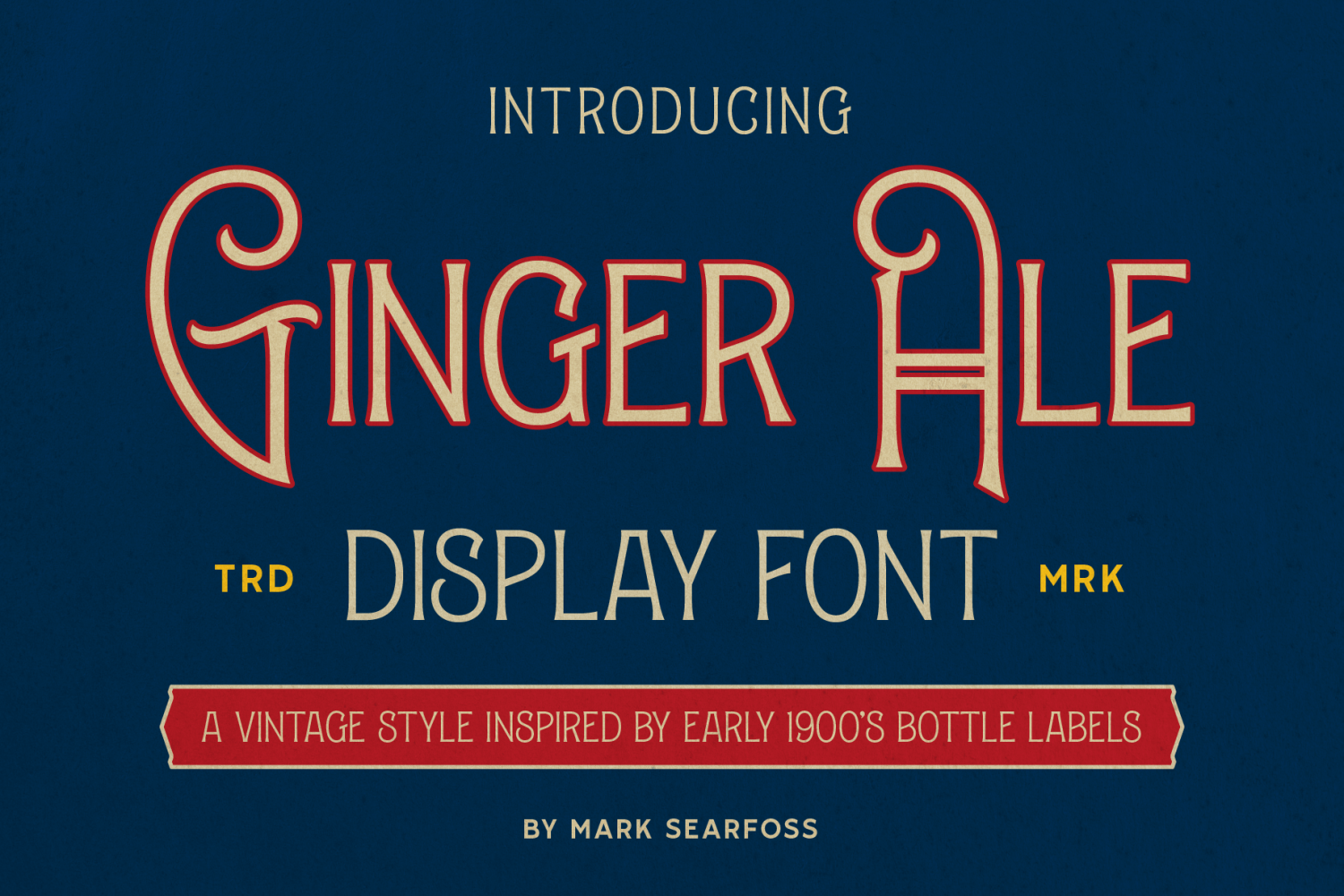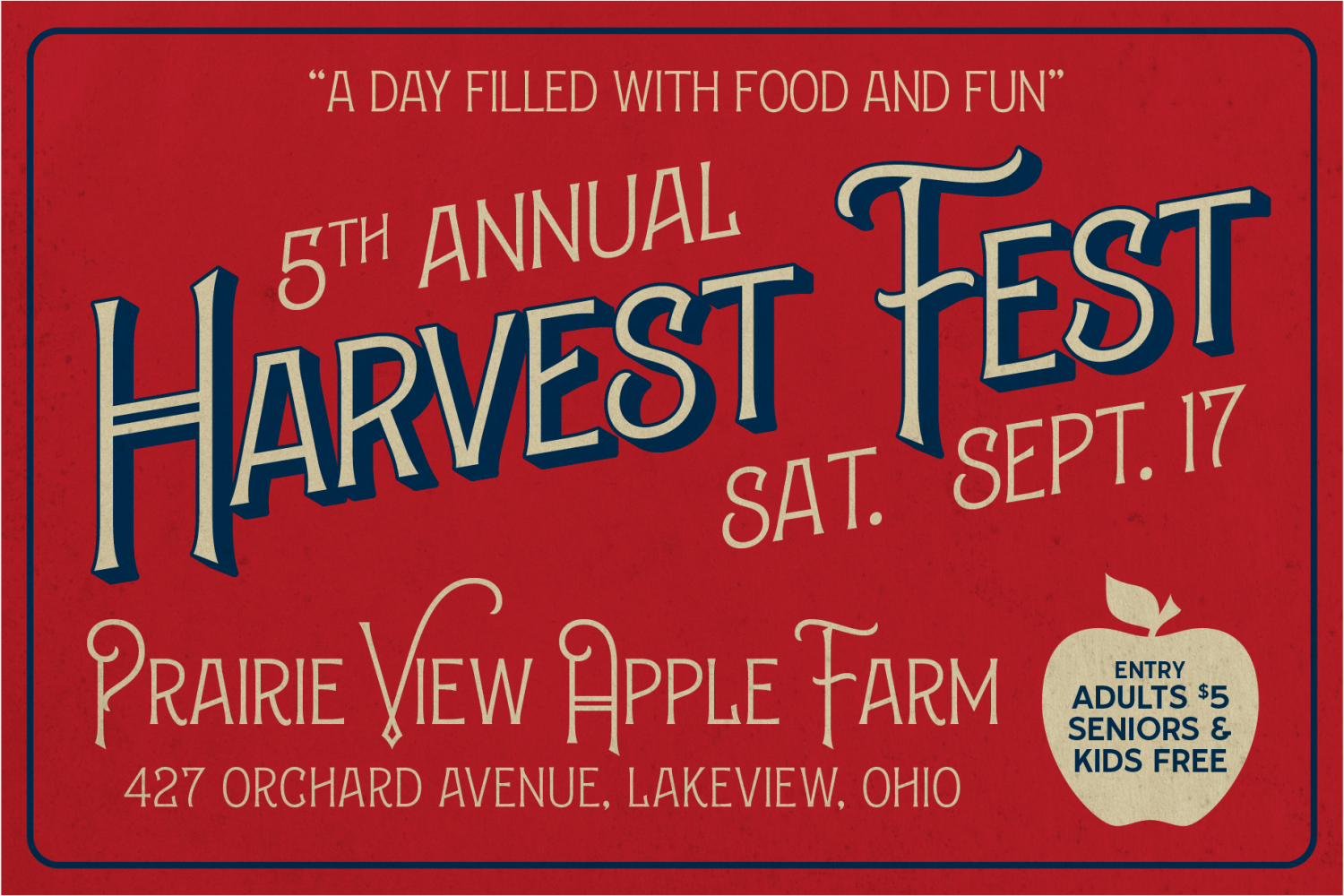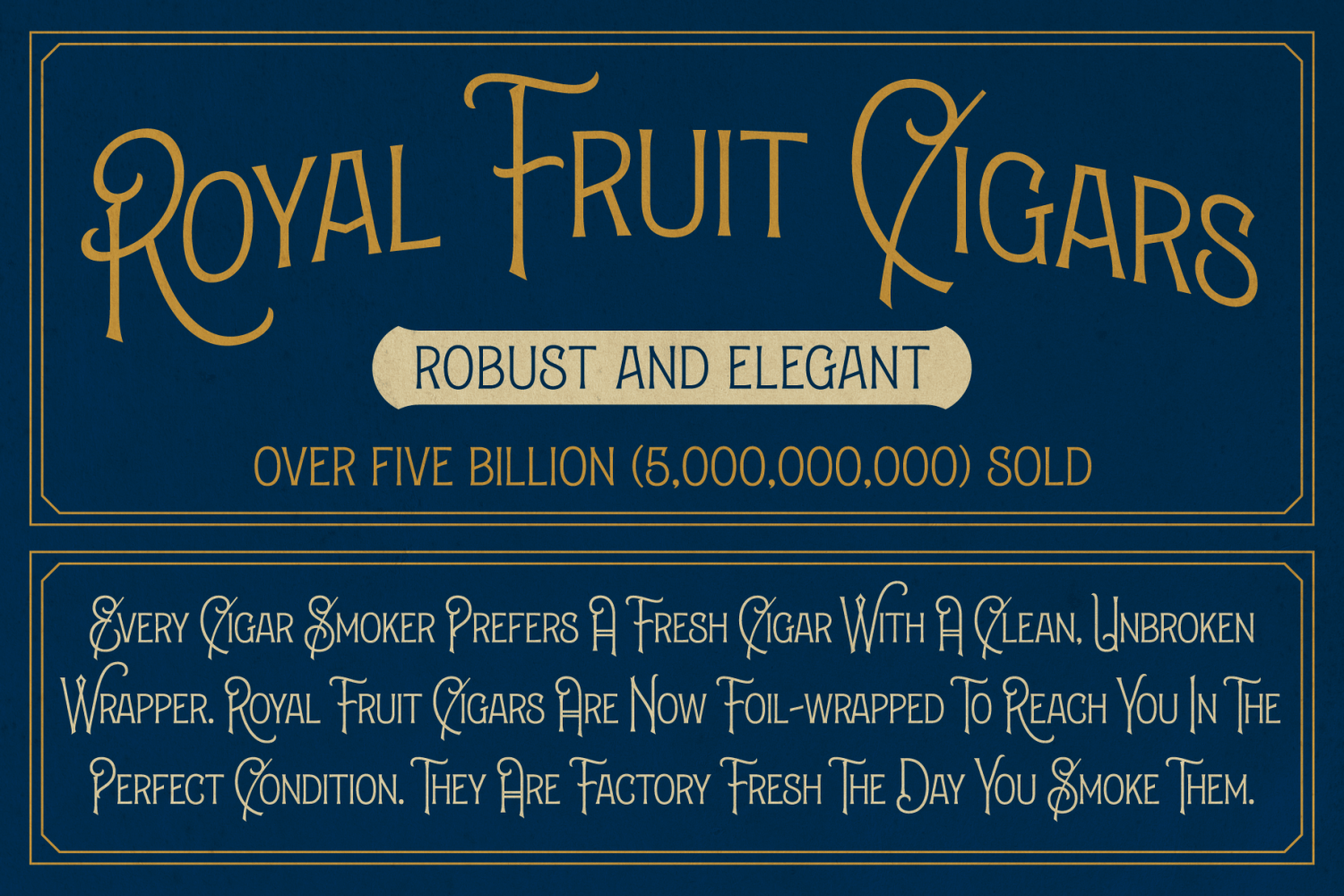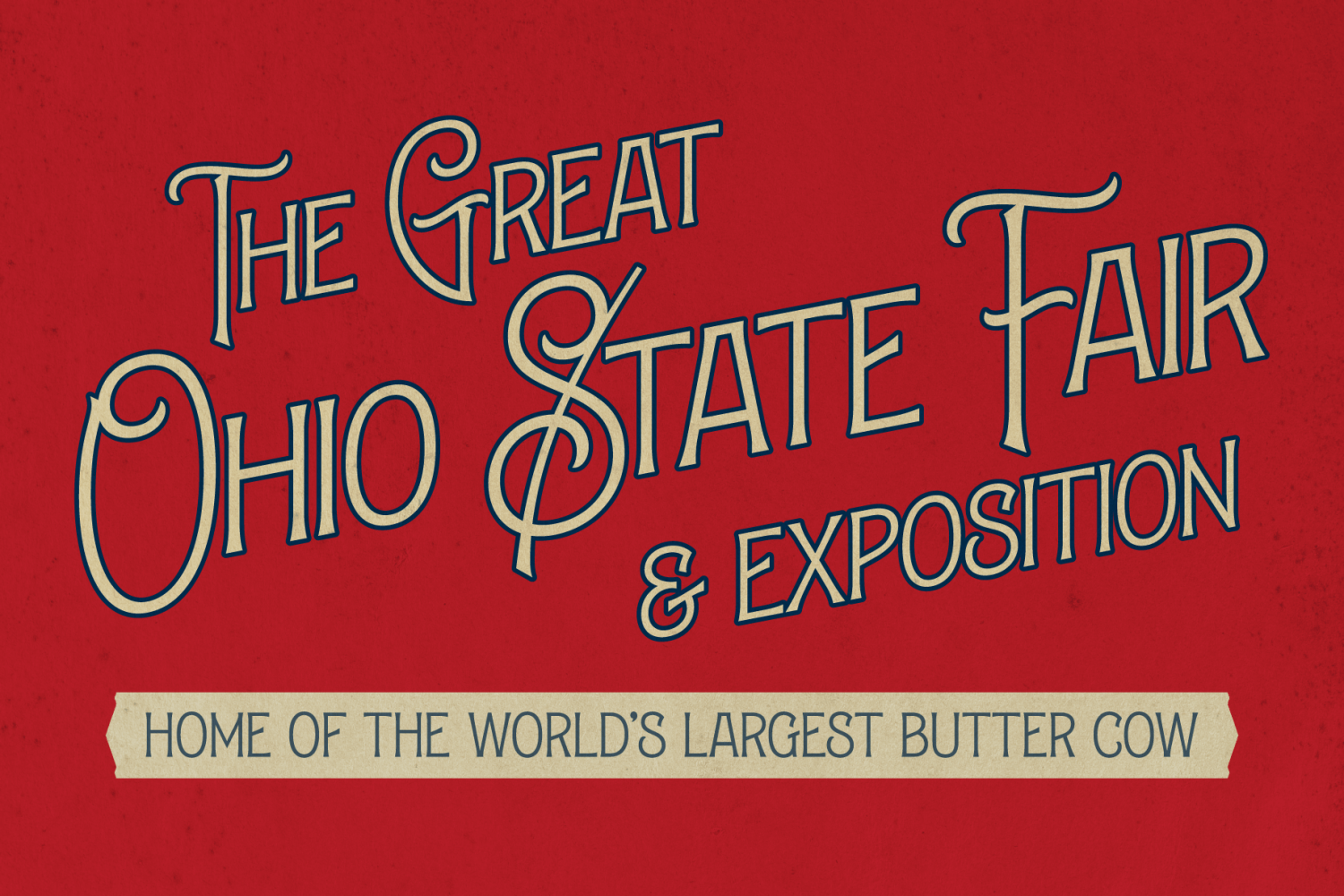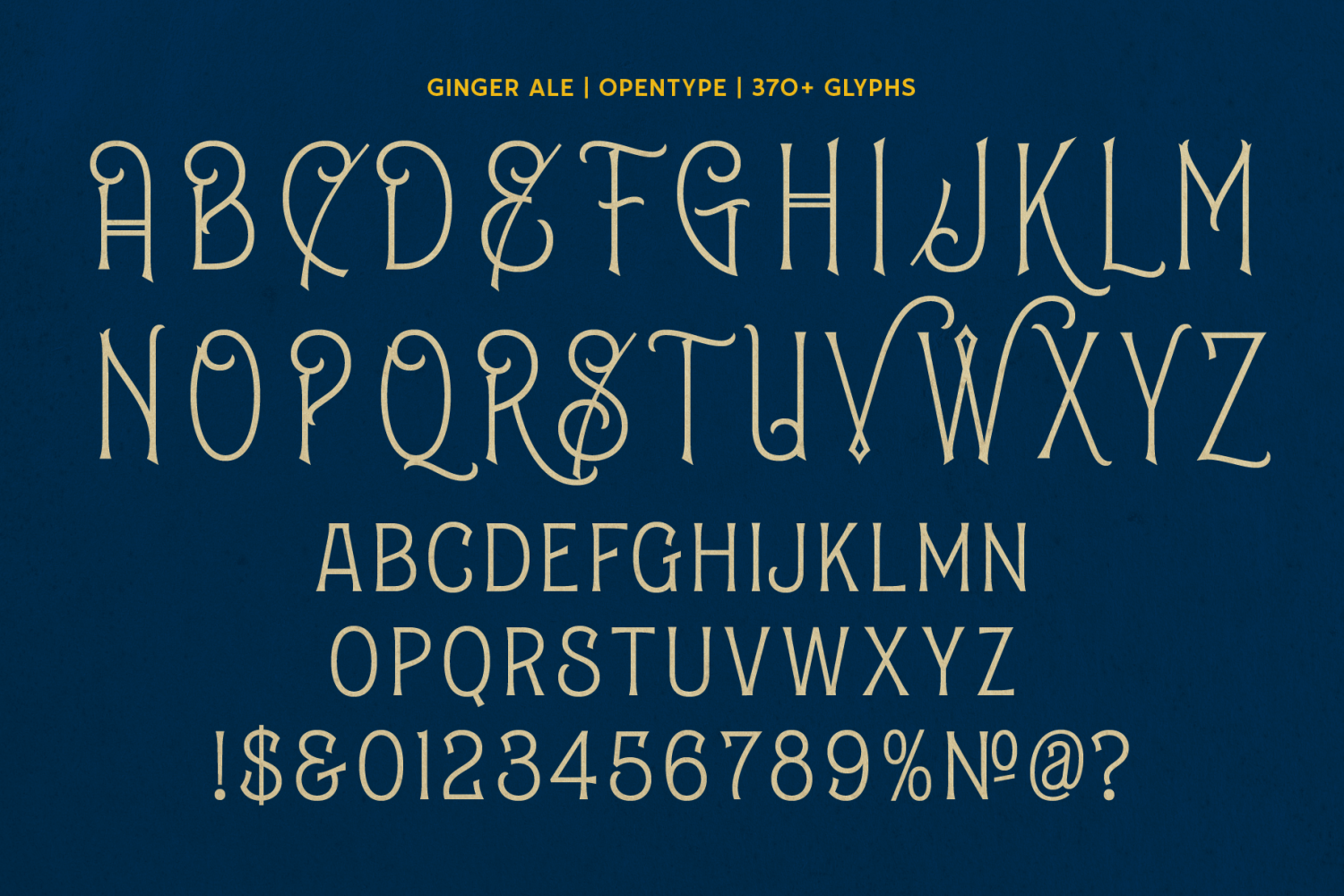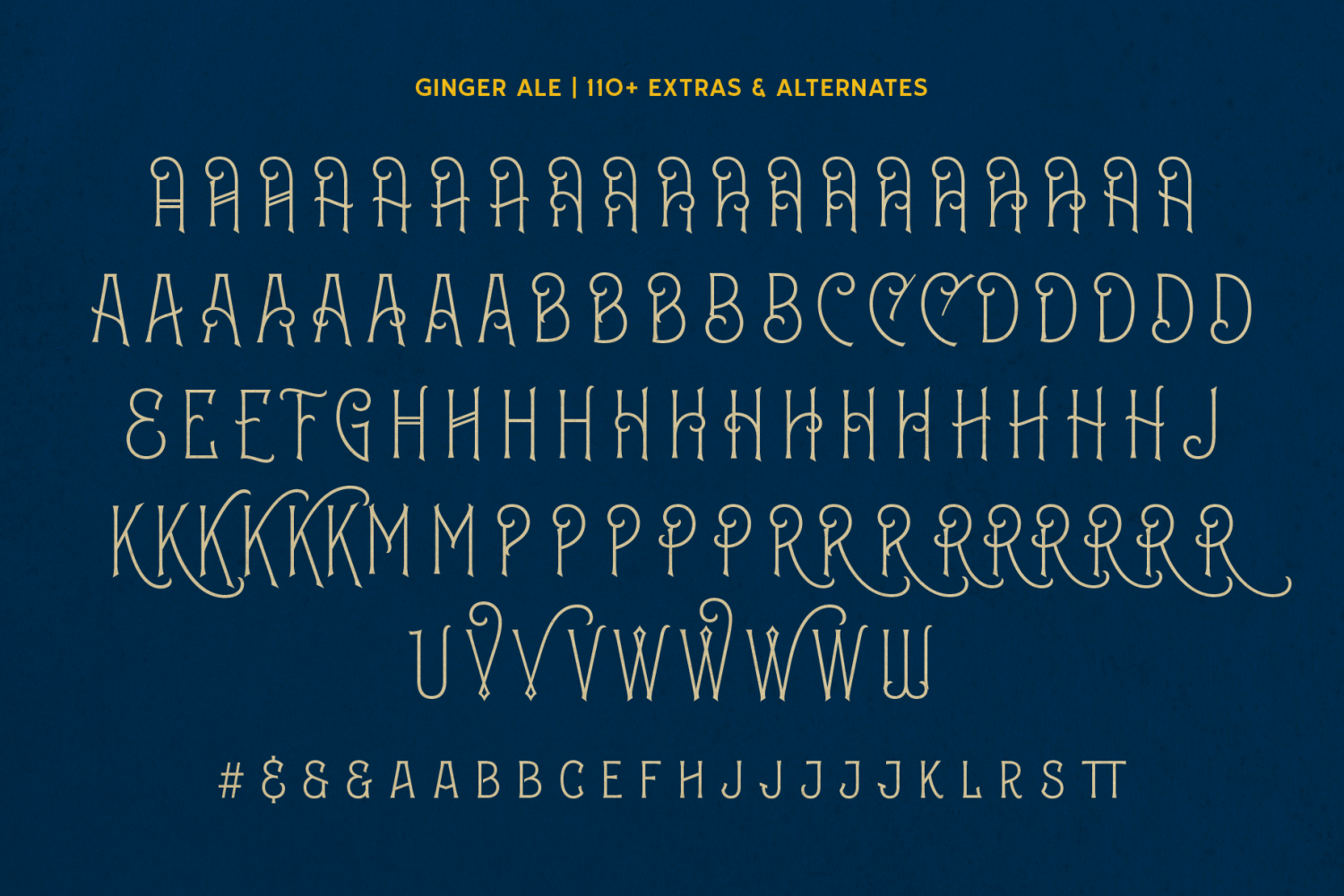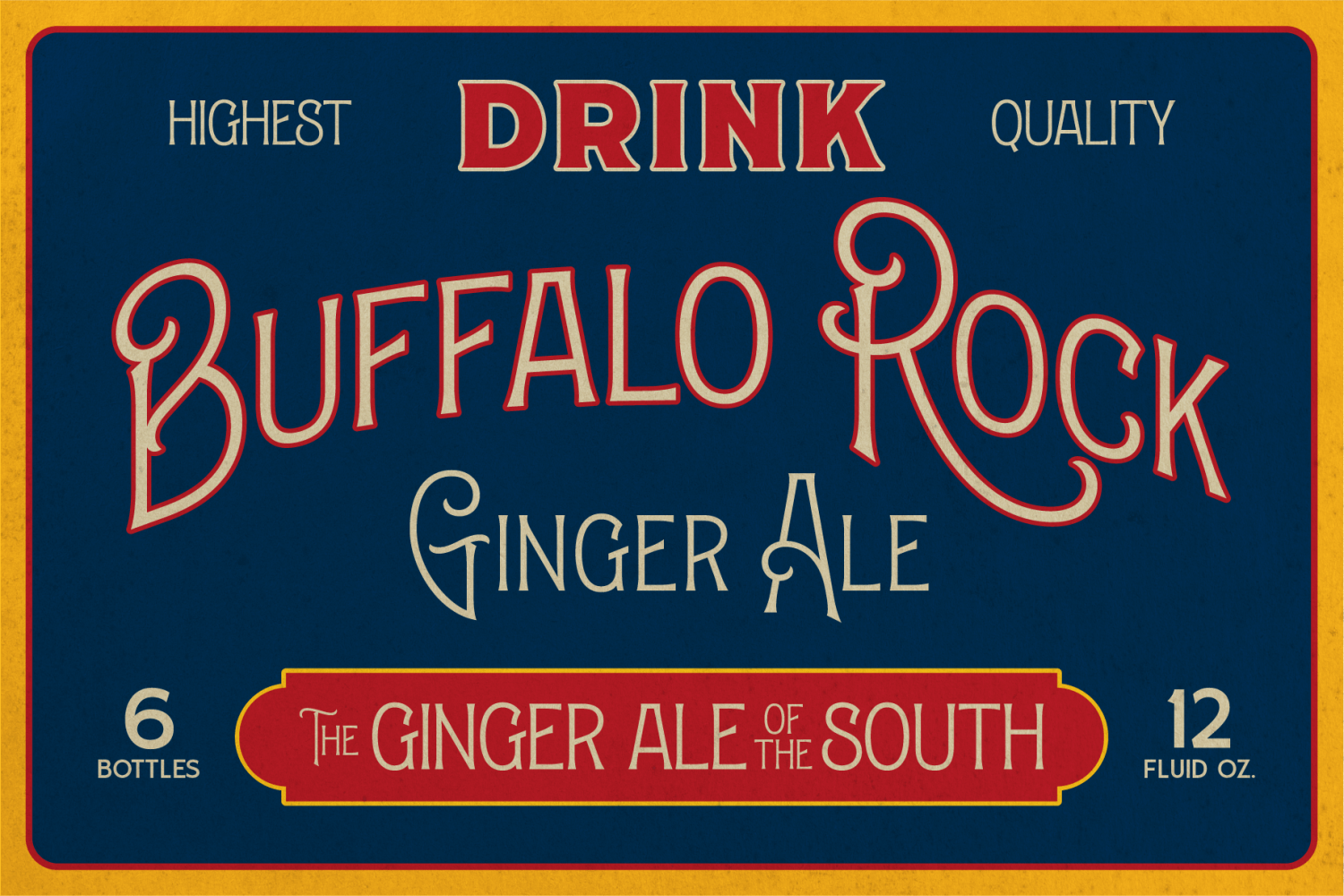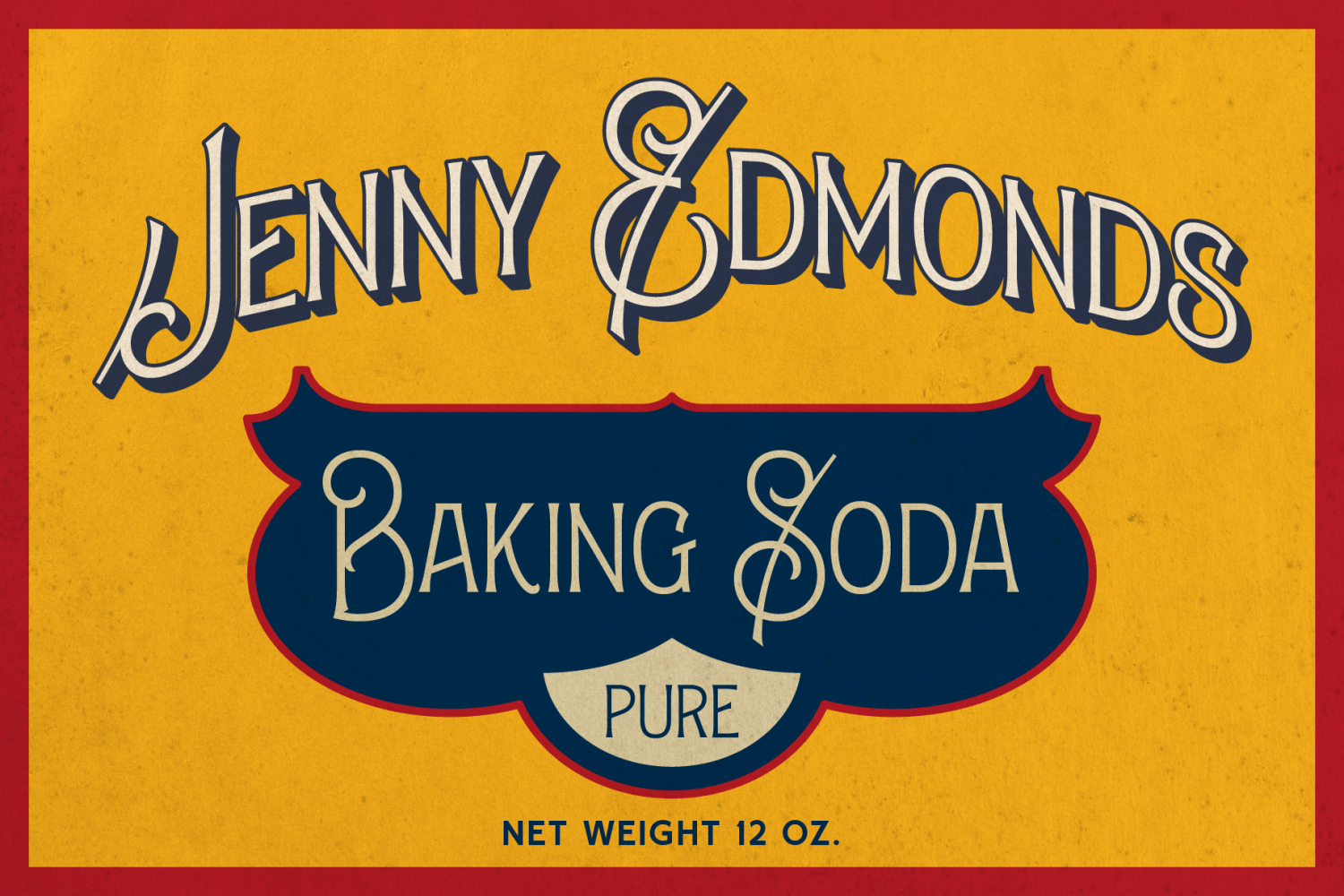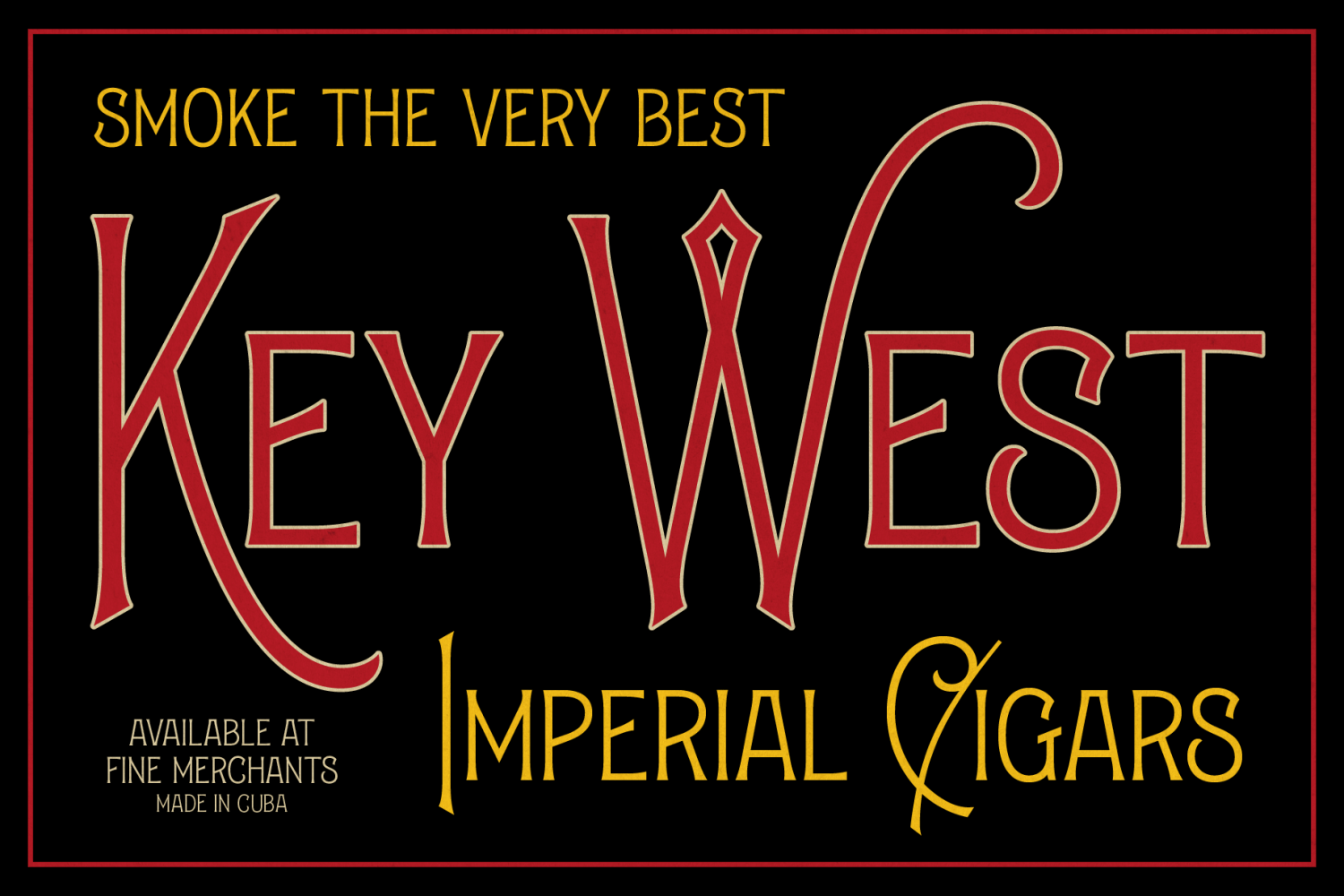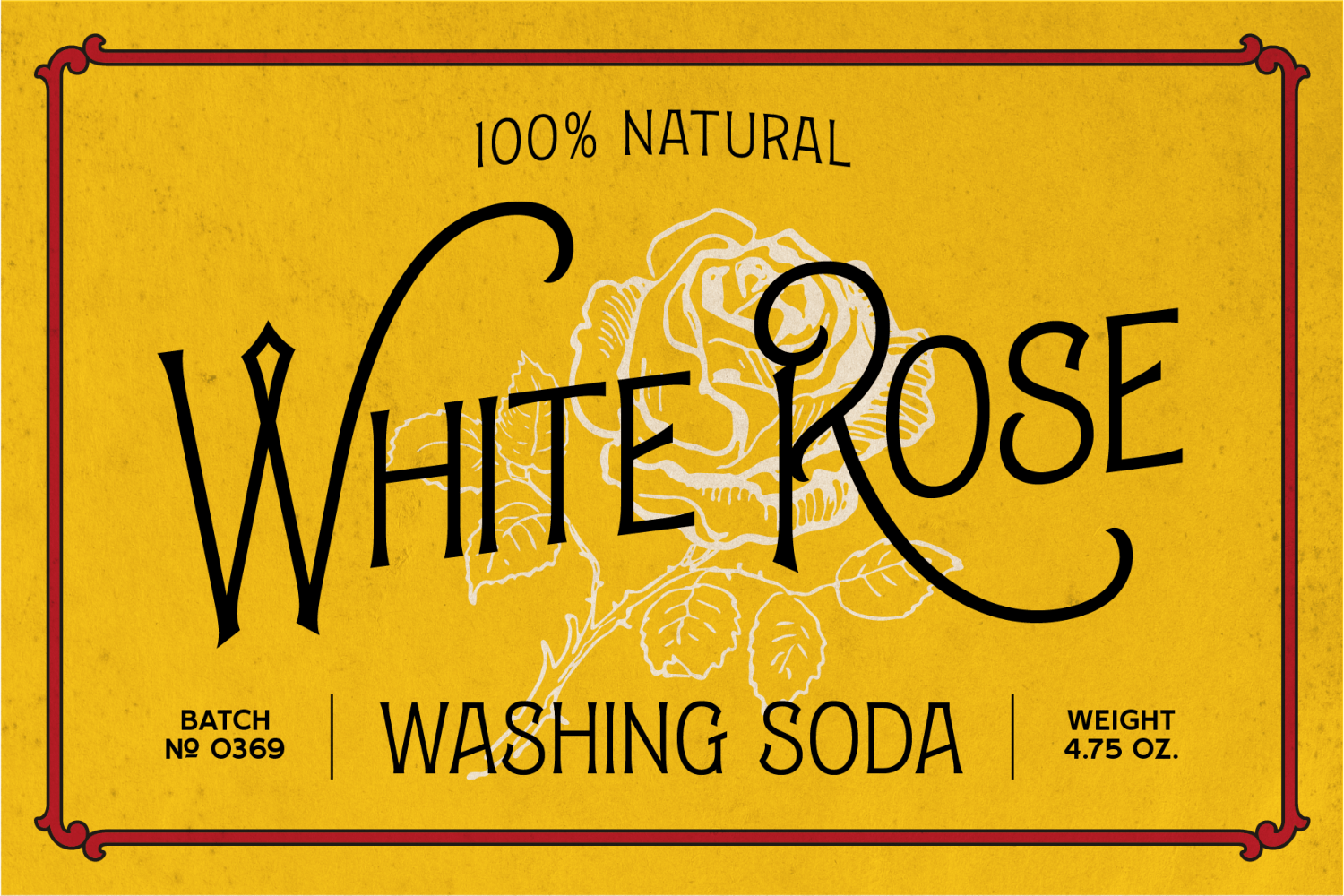
Ginger Ale
Font Family by Searfoss Design
Ginger Ale is a vintage, light weight display font inspired by early American hand lettered bottle labels and packaging. Featuring a light serif and elegant curves, it's great for logos, package design, book covers and more. And with 110+ stylistic alternates, Ginger Ale helps you quickly add a custom look to your designs.